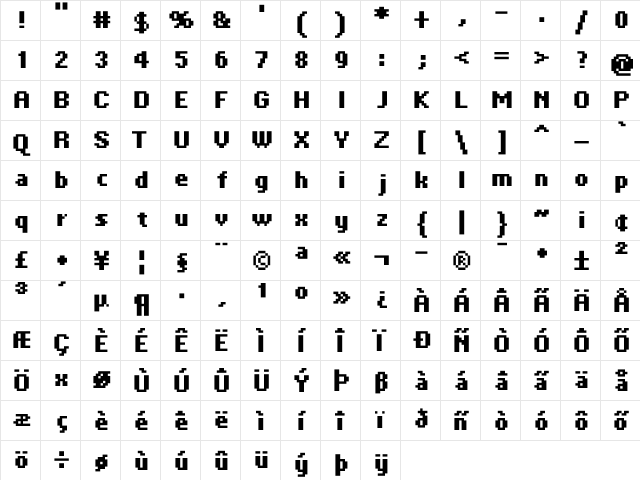
Tenacity Condensed Bold
Design Context for Tenacity Condensed Typeface
Tenacity Condensed is a composed and adaptable typeface that performs quietly and consistently across a wide range of design contexts. Its bold stroke weight gives it real presence on the page. Its narrow stance lets it pack a punch even in space-constrained designs.